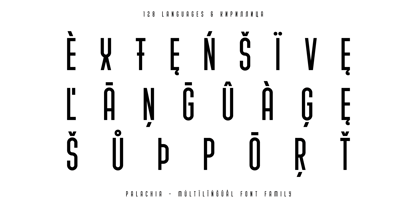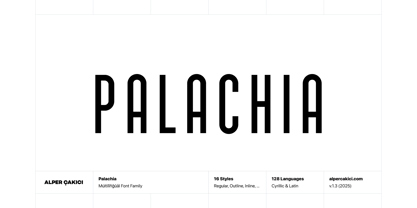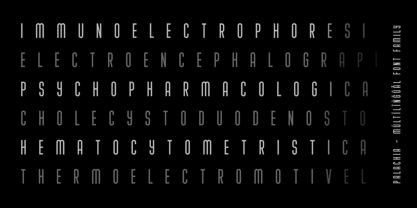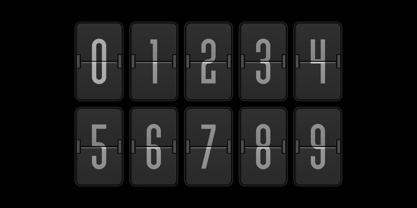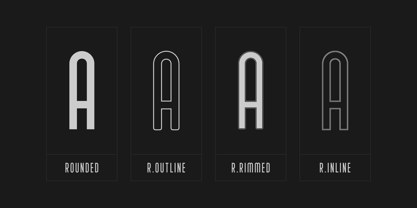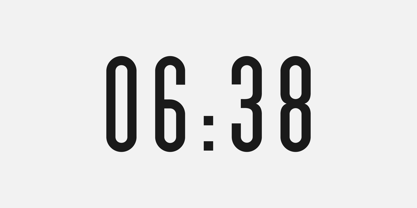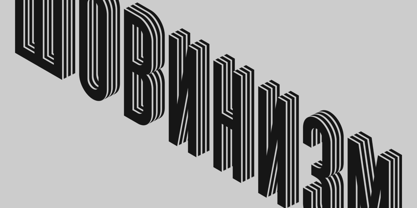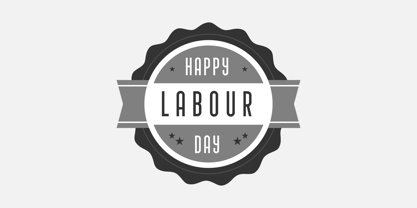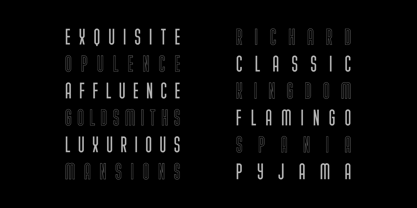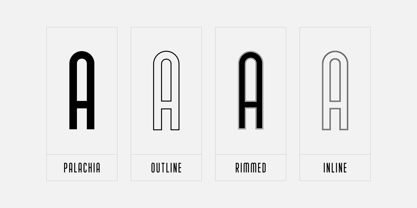
Palachia
Palachia is a geometric sans with presence — clean, confident, and crafted for impact. Designed with both structure and soul, it balances rounded precision with sharp geometry to achieve modern minimalism infused with bold expression. With 16 meticulously designed styles, Palachia gives creators a complete expressive range — from sleek Inline and Outline cuts to commanding Ultra Black weights. Whether for print or digital, it delivers striking clarity across logos, headlines, posters, packaging, and brand identities. Every curve, counter, and connection has been refined for harmony — smooth transitions, balanced proportions, and a distinctive edge that holds its strength in any layout. ✨ Inside the family: • 16 fonts — Inline, Outline, Regular, Rimmed, Rounded Inline, Rounded Outline, Rounded Rimmed, and matching Italics • Clean geometric construction with a modern, polished finish • Ideal for bold titles, elegant headers, and timeless identities • Supports 128 languages, including full Cyrillic (Russian, Ukrainian, …) coverage With precise kerning and carefully tuned spacing, Palachia ensures professional results in every medium. Combining classic geometric proportions with contemporary styling, it’s both versatile and distinctive — designed for creators who value clarity, precision, and confident design.